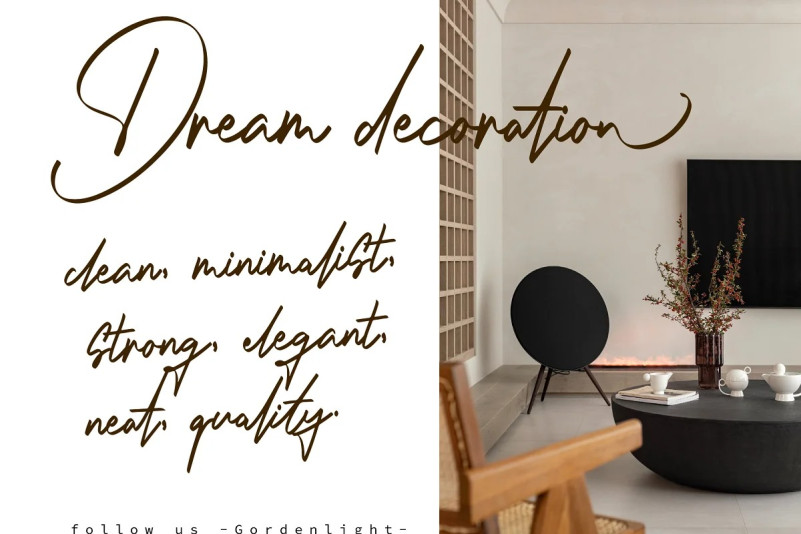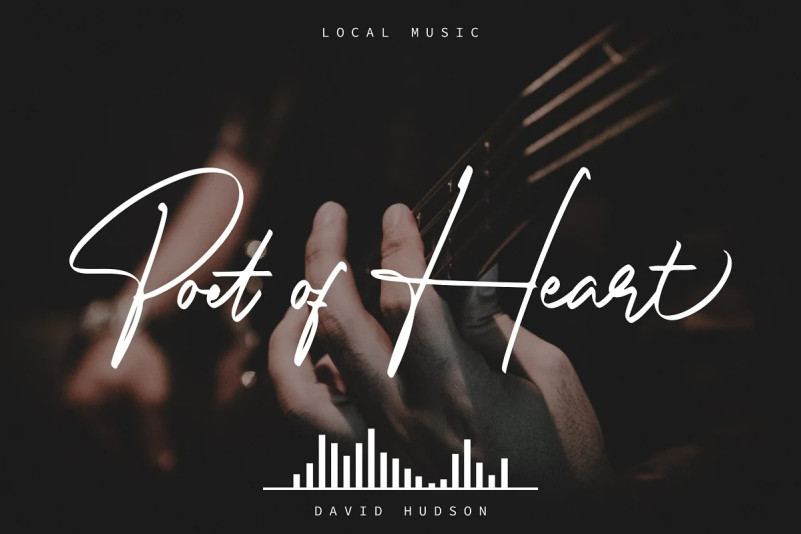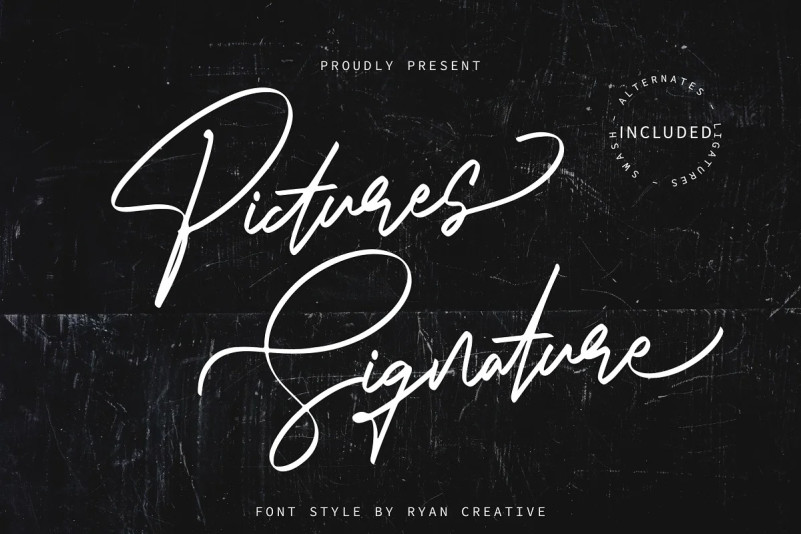
Pictures Signature Font
Pictures Signature Font are designed to be inspired by a photo wall with signature-like inscriptions, giving a personal and exclusive impression. This typeface is characterized by steep, curved strokes, with some letters appearing to connect to each other as in handwriting. and is suitable for use in various media such as brand names, name logos, magazines, posters and other digital media.